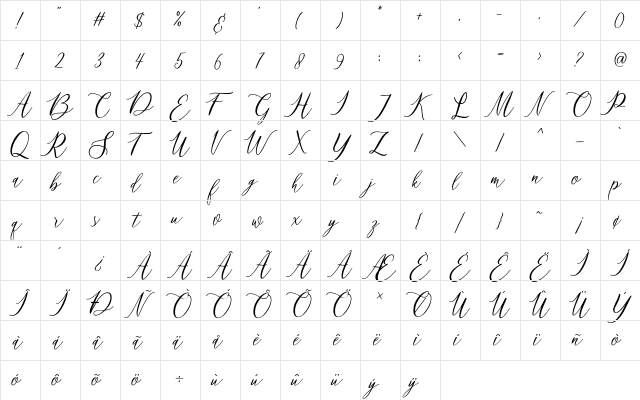
matania script Regular
| Foundry | Zulkhairi M Saleh |
| Designer | Zulkhairi M saleh |
Design Context for matania script Typeface
matania script brings a calligraphic fluidity to the page — its connecting strokes and expressive curves give it an unmistakably human quality.
Font Pairing: Combine matania script with a simple geometric sans for maximum contrast — the tension between flowing curves and clean structure is a classic typographic pairing.
Pro Tip: Pair matania script with a clean sans-serif for supporting text. The contrast between fluid script and geometric structure creates an elegant typographic hierarchy.